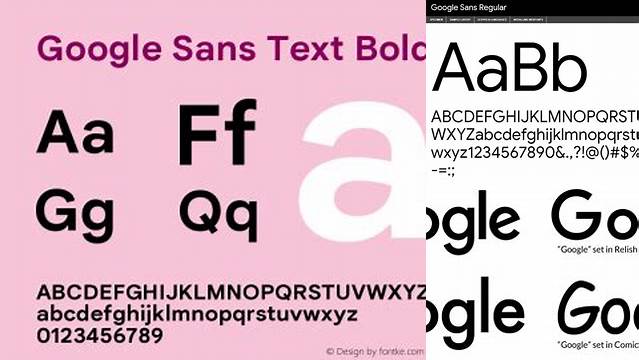
Google Sans Text Font: Free Download Guide & Alternatives
Hey guys! Ever wondered about that sleek, modern font you see all over Google's products? Chances are, you're thinking of Google Sans, a typeface that has become synonymous with the brand's clean and contemporary aesthetic. In this article, we're diving deep into the world of Google Sans, exploring its origins, characteristics, and, most importantly, how you can get your hands on it for free. Whether you're a designer, developer, or just a font enthusiast, this guide is your ultimate resource for all things Google Sans.
1. Understanding the Origins of Google Sans
To truly appreciate Google Sans text font free download, it's essential to understand its history. Google Sans, originally known as Product Sans, was created in 2015 as part of Google's major rebranding effort. The goal was to create a typeface that reflected the company's evolving identity: modern, approachable, and versatile. The font was designed in-house and gradually rolled out across various Google products and platforms. Its geometric design, clean lines, and subtle curves set it apart from more traditional fonts, giving Google a distinct visual identity. Product Sans was not initially available for public download, which made it highly sought after by designers and typographers. The design team meticulously crafted each character to ensure legibility and consistency across different sizes and resolutions. This attention to detail is one reason why Google Sans has become so popular and influential in the design world. Furthermore, the development of Google Sans marked a significant shift in how companies approach branding through typography, highlighting the importance of a custom typeface in establishing a strong visual identity.
2. Key Characteristics of the Google Sans Font
What makes Google Sans text font free download so special? Let's break down its key characteristics. First and foremost, it's a geometric sans-serif typeface, meaning it's based on simple geometric shapes like circles and squares. This gives it a clean and modern look. The font also features subtle curves and rounded terminals, which add a touch of warmth and approachability. Unlike some other sans-serif fonts, Google Sans has a relatively low contrast, making it highly legible even at small sizes. This is crucial for UI design and mobile applications. The typeface also includes a wide range of weights and styles, from thin to bold, allowing for flexibility in different design contexts. Another notable feature is its multilingual support, ensuring that it can be used effectively in various languages and regions. The careful balance between geometric precision and humanistic touches is what makes Google Sans so versatile and appealing. This careful consideration of design elements contributes significantly to the font's overall readability and aesthetic appeal. Understanding these characteristics is key to effectively utilizing Google Sans in your projects.
3. Is a True Google Sans Text Font Free Download Possible?
Now for the big question: can you actually get a Google Sans text font free download? The official answer is a bit complicated. Google Sans, in its original form, is proprietary and not freely available for commercial use. However, Google does offer a very similar font called Product Sans, which embodies the core design principles of Google Sans and is freely available through Google Fonts under the name 'google sans'. This version maintains the clean lines, geometric shapes, and excellent readability of the original, making it a great alternative for designers and developers. While you might find unofficial downloads of Google Sans floating around the internet, it's important to be cautious as these may contain malware or infringe on copyright. Sticking to official sources and open-source alternatives is always the safest bet. So, while a direct, official free download of the original Google Sans isn't possible, the freely available alternatives provide an excellent substitute. Always ensure you are downloading fonts from reputable sources to avoid any potential legal or security issues.
4. Exploring the Google Fonts Library
The best place to start your search for a Google Sans text font free download alternative is the Google Fonts library. This vast repository offers hundreds of open-source fonts, all available for free download and use. To find fonts similar to Google Sans, you can search for sans-serif fonts with geometric characteristics. Fonts like Montserrat, Lato, and Open Sans are excellent alternatives that share many of the design qualities of Google Sans. Google Fonts makes it easy to preview fonts, download them in various formats, and even embed them directly into your website using a simple code snippet. The library is constantly updated with new fonts, so it's always worth checking back to see what's new. Using Google Fonts ensures that you're getting high-quality, legally licensed fonts that are optimized for web use. The platform also provides helpful information about each font, including its designer, license, and usage statistics. This makes it an invaluable resource for designers and developers looking for free and reliable fonts. Furthermore, the ease of integration with web projects makes Google Fonts a go-to solution for web typography.
5. Alternatives to Google Sans: Open Sans
If you're hunting for a Google Sans text font free download alternative, Open Sans is a fantastic choice. Designed by Steve Matteson, Open Sans is a humanist sans-serif typeface known for its neutral yet friendly appearance. It's highly legible on screens and in print, making it a versatile option for a wide range of projects. Open Sans is available in a variety of weights and styles, including regular, italic, bold, and light, providing plenty of flexibility for your design needs. Its open forms and clean lines make it a great substitute for Google Sans, especially in UI design and body text. Open Sans is also optimized for print, web, and mobile interfaces, ensuring consistent performance across different platforms. Its widespread use and broad language support make it a reliable choice for international projects. The font's balanced design and excellent readability contribute to a professional and polished look, making it a popular alternative to Google Sans. Moreover, Open Sans is continuously updated and improved, ensuring its compatibility with the latest design trends and technologies. Its open-source license allows for free use in both personal and commercial projects.
6. Montserrat: A Geometric Sans-Serif Option
Another excellent alternative when seeking a Google Sans text font free download is Montserrat. This geometric sans-serif typeface, designed by Julieta Ulanovsky, is inspired by the urban typography of the Montserrat neighborhood in Buenos Aires. Montserrat has a bold and modern look, with clean lines and strong geometric forms. It's available in a wide range of weights, from thin to black, making it suitable for headlines, body text, and display purposes. Its distinct character shapes and excellent readability make it a popular choice for branding, web design, and print projects. Montserrat's strong visual presence ensures that it stands out, while its versatility allows it to blend seamlessly into various design contexts. The font also includes extensive language support, making it a great option for international projects. Montserrat's open-source license allows for free use in both personal and commercial projects, making it an accessible choice for designers and developers. The font's unique blend of geometric precision and urban inspiration gives it a distinctive character that sets it apart from other sans-serif typefaces. Furthermore, Montserrat's popularity has led to its widespread adoption across various design fields.
7. Lato: A Balanced and Readable Font
Looking for another Google Sans text font free download replacement? Consider Lato. Designed by Łukasz Dziedzic, Lato is a sans-serif typeface that strikes a perfect balance between seriousness and friendliness. Its semi-rounded details give it a warm and approachable feel, while its strong structure ensures excellent readability. Lato is available in a wide range of weights and styles, making it a versatile choice for various design applications. Its clean and modern look makes it a great substitute for Google Sans, especially in web design and UI design. Lato is also optimized for screen rendering, ensuring that it looks crisp and clear on different devices. Its broad language support and open-source license make it an excellent choice for international projects and commercial use. The font's careful design and attention to detail contribute to its overall legibility and aesthetic appeal. Lato's balanced character and versatile nature make it a popular choice among designers and developers. Moreover, its widespread use and continuous updates ensure its compatibility with the latest design trends and technologies.
8. Roboto: Google's Other Popular Font
While searching for a Google Sans text font free download, it's worth mentioning Roboto, another popular font from Google. Designed by Christian Robertson, Roboto is a neo-grotesque sans-serif typeface that is the system font for Android. It has a dual nature, featuring both mechanical and humanistic qualities. Roboto is available in a wide range of weights and styles, making it suitable for various design applications. Its clean and modern look makes it a versatile choice for both web and print design. While it's not a direct substitute for Google Sans, it shares many of the same qualities and can be a good alternative depending on your specific needs. Roboto's optimized rendering for screens ensures excellent readability on different devices. Its broad language support and open-source license make it a great choice for international projects and commercial use. The font's unique design and versatility have made it a popular choice among designers and developers. Moreover, its widespread use in the Android operating system has contributed to its familiarity and recognition. Its availability on Google Fonts makes it easily accessible for various design projects.
9. How to Identify Google Sans in a Design
So there you have it! Everything you need to know about Google Sans text font free download and its awesome alternatives. Happy designing, folks!